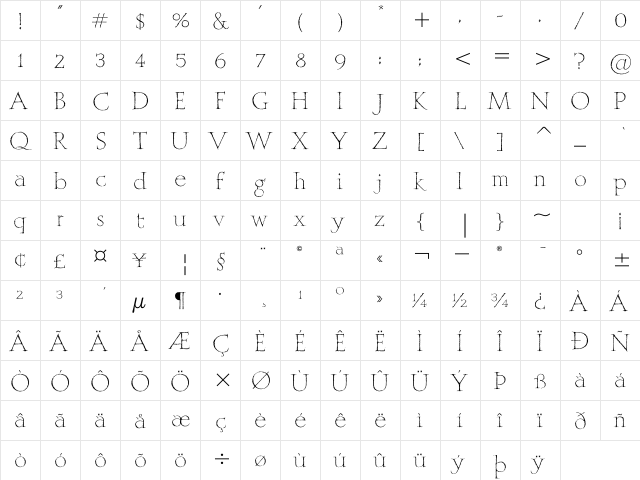
Mithras ITC TT Regular
Design Context for Mithras ITC TT Typeface
Mithras ITC TT takes a measured approach to typography — its balanced proportions and neutral character make it a reliable workhorse for both digital and print work.